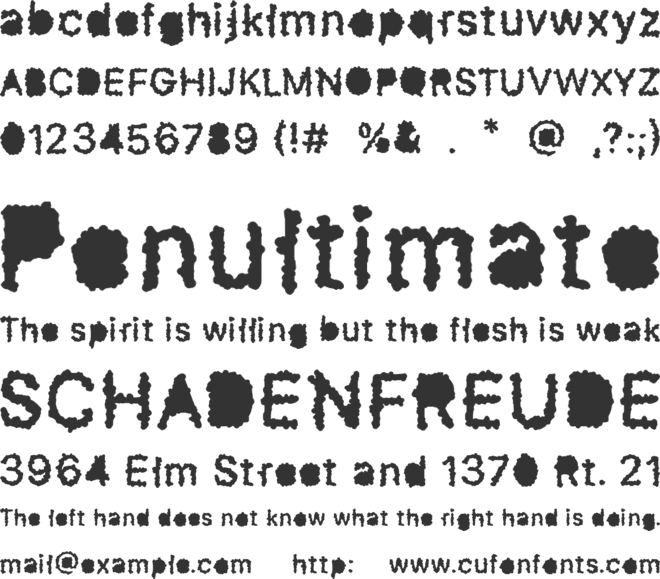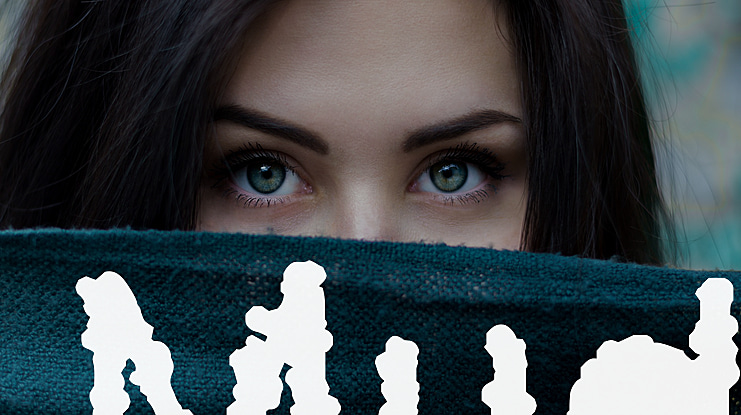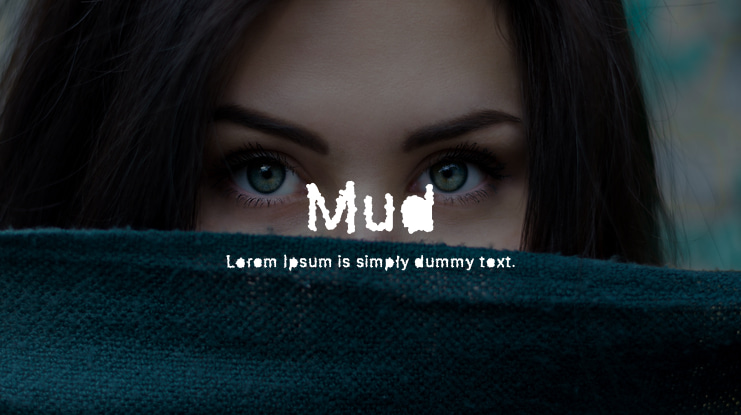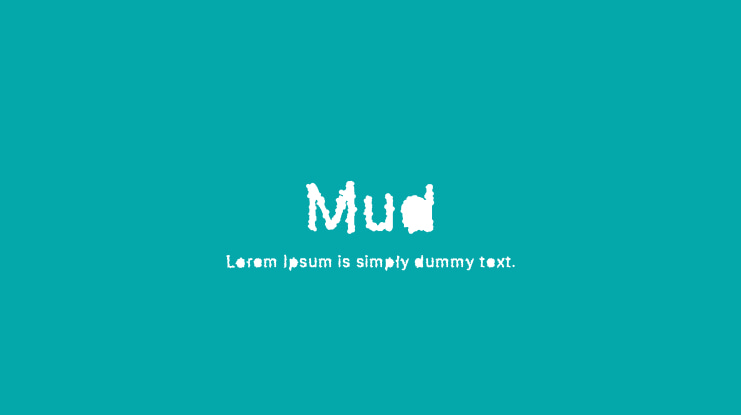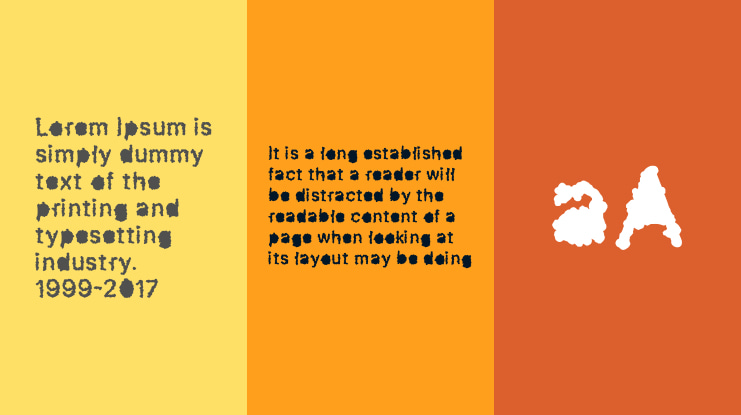
Mud Font
Another destroyed font, I call this one 'Mud'. This font was also altered using OPENRNDR, and then vectorised and made into a proper font using Fontself.